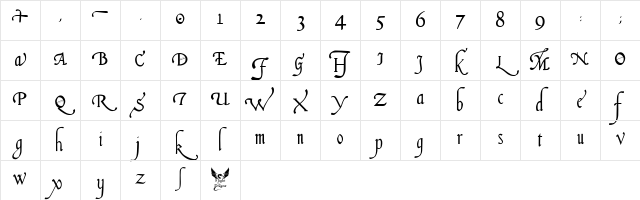
Design Context for Italian Cursive, 16th c.
Italian Cursive, 16th c. flows with the natural rhythm of handwritten lettering, making it ideal for designs that call for warmth and personal expression.
Font Pairing: Combine Italian Cursive, 16th c. with a simple geometric sans for maximum contrast - the tension between flowing curves and clean structure is a classic typographic pairing.
Pro Tip: Use Italian Cursive, 16th c. for short runs of text - names, titles, or taglines. Extended body copy in script faces tires the eye quickly.